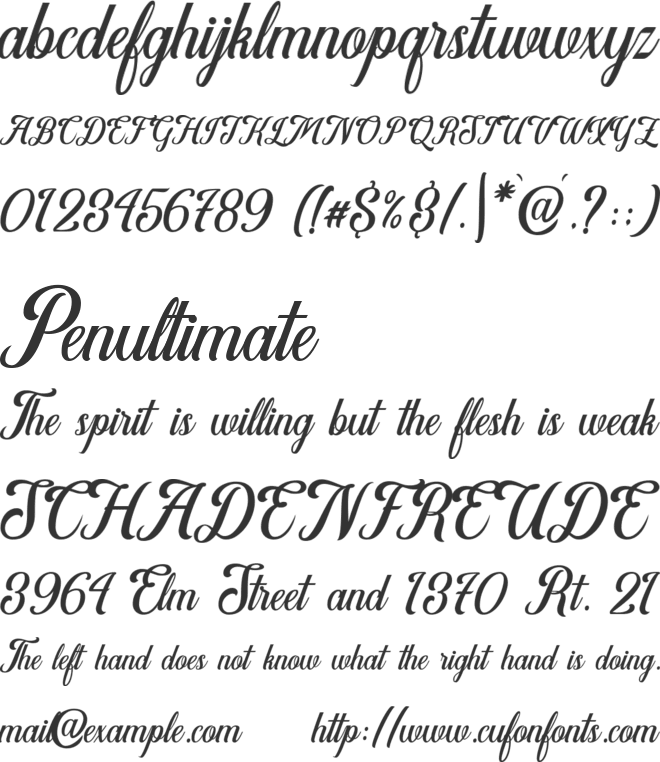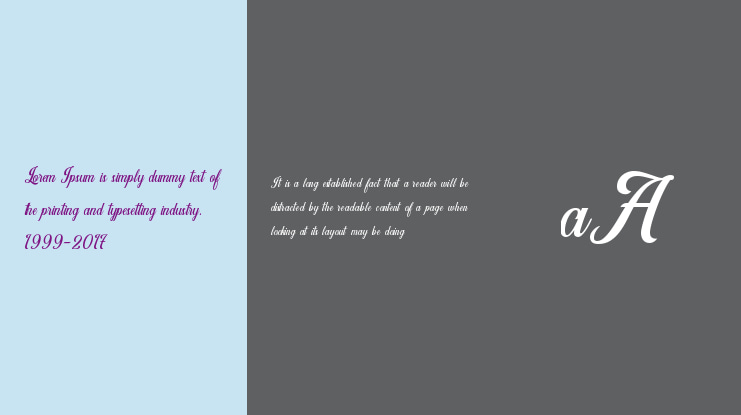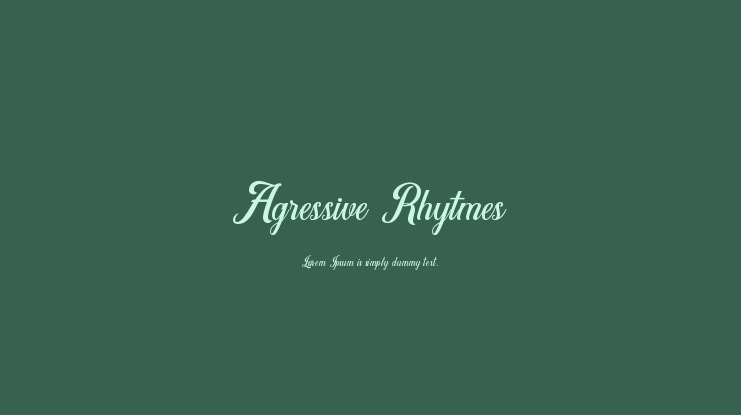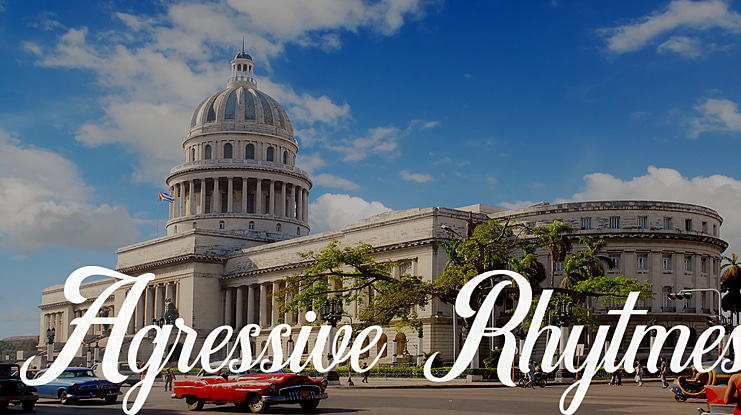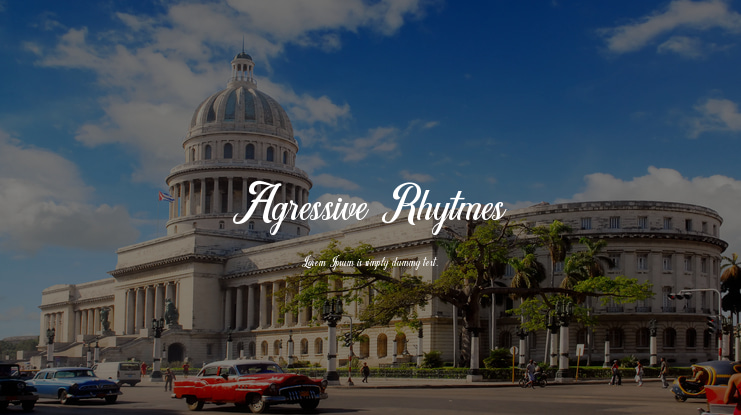
Agressive Rhytmes Font Family
Agressive Rhytmes font with script handwritten styles. A collection of letters and numbers suitable your projects also great for Logotype, Branding Design, Logo Design, Digital Lettering Arts, T-Shirt/Apparel, Poster, Magazine, Signs, Advertising Design, and any design needs.